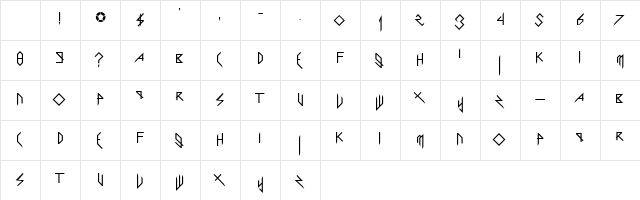
Scary Glyphs and Nice Characters carries an unsettling edge - its distorted letterforms are built to unsettle, perfectly suited to horror, Halloween, and dark creative work.
Font Pairing: Pair with a clean neutral sans-serif for body copy to let Scary Glyphs and Nice Characters's character lead without overwhelming the composition.
Pro Tip: Use Scary Glyphs and Nice Characters at larger display sizes for maximum impact. Consider generous tracking to let the disturbing character of each letterform breathe.